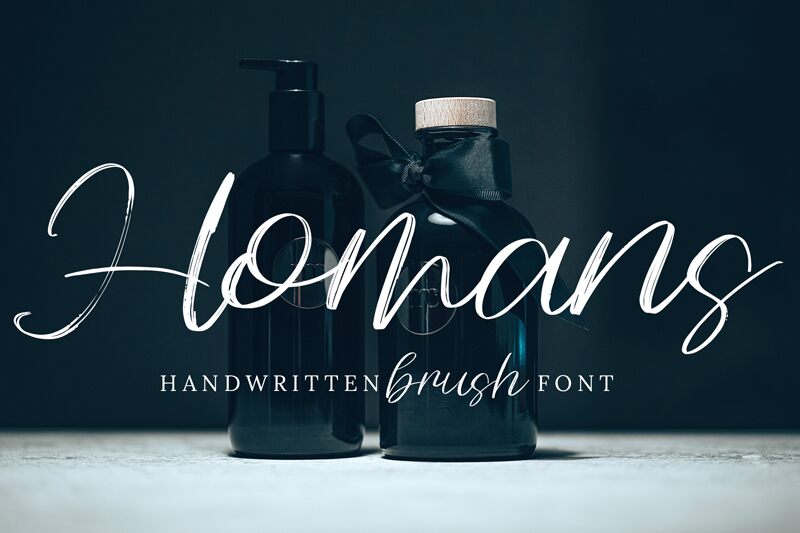
Looking for a font to create elegant greeting cards or wedding invitations? The Homans script by Bearytype is your answer.
Thanks to this cursive font, you can have elegant and stylish texts for your logos, wedding invitations, posters, brochures, menus, and more!
This font comes with a free version with uppercase, lowercase, numbers, and punctuation. Use Homans for modern logos or branding projects, stylish stationery design (labels, postcards, and more), or digital posters.